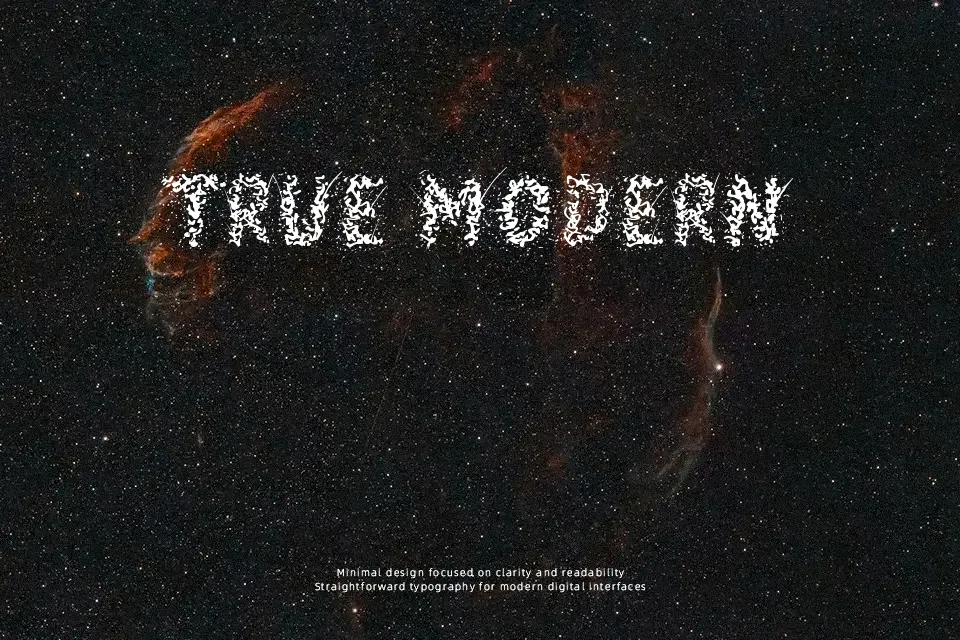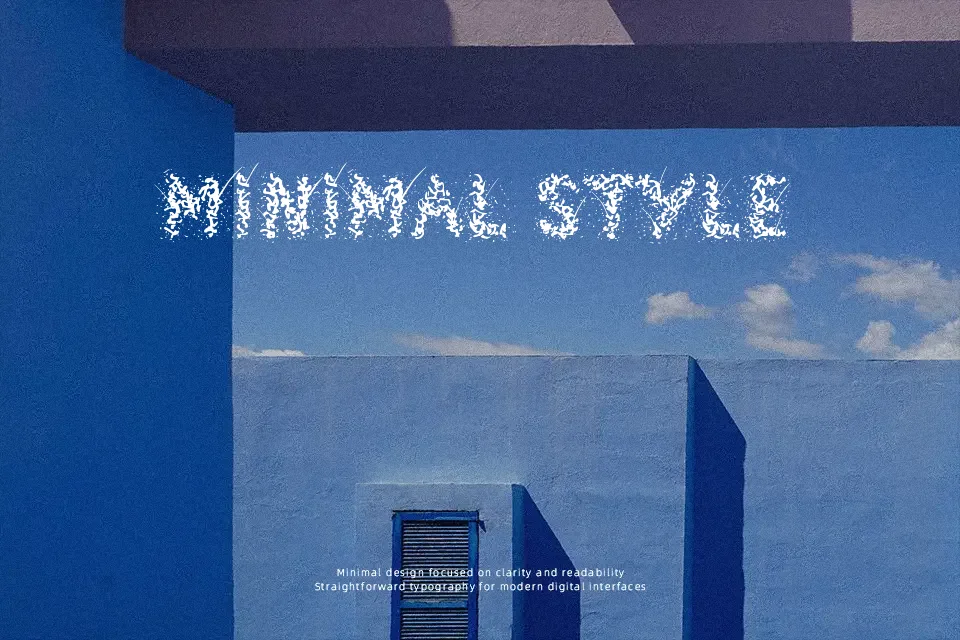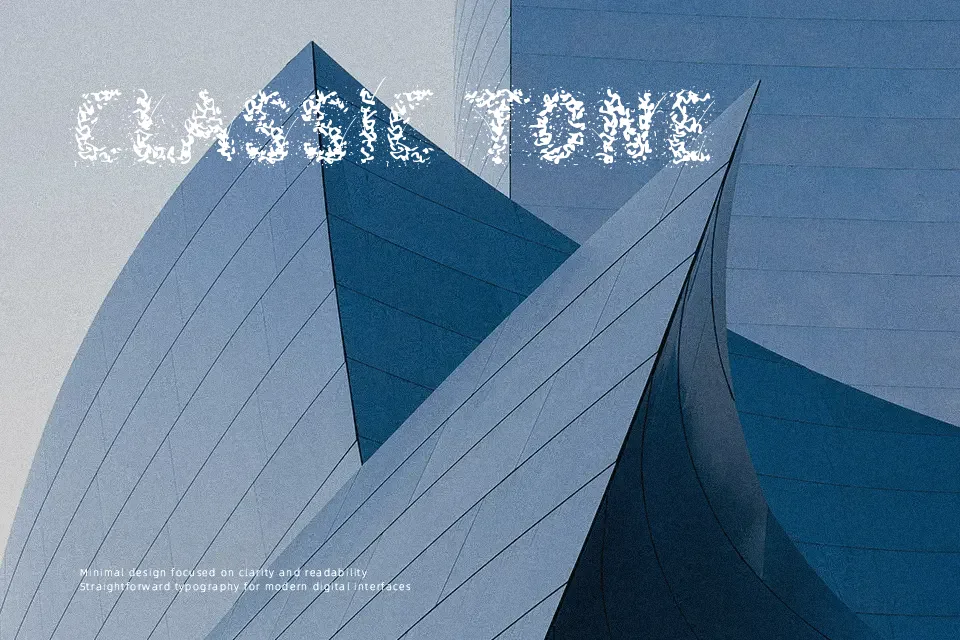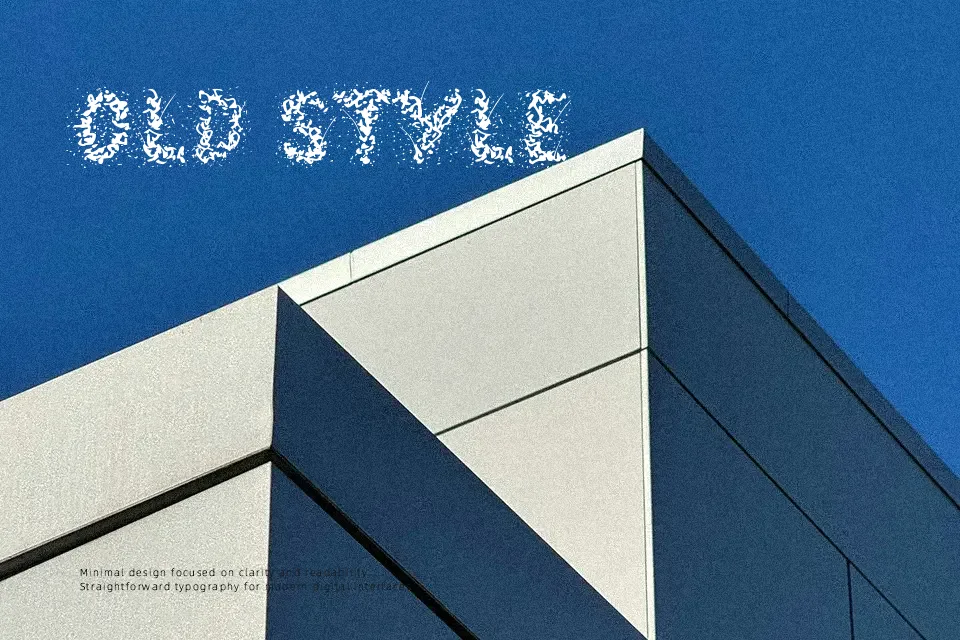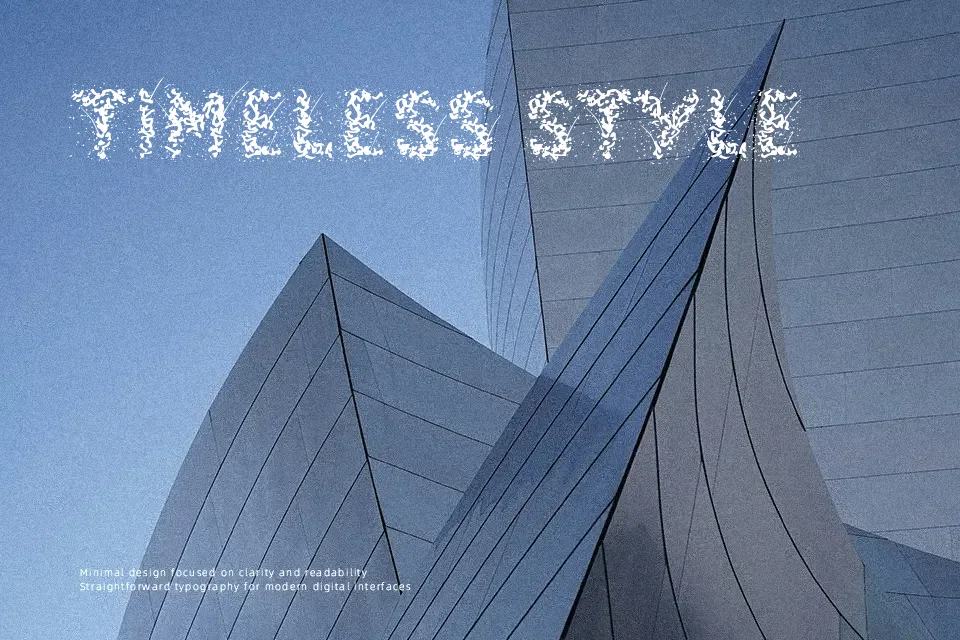
Snowmania Font
Snowmania Font uses heavy, uneven display letterforms with rounded, dripping contours that create a frosted, hand-shaped appearance. The strokes are broad and the proportions vary noticeably from character to character, giving short words a playful, wintry rhythm. Spacing appears open enough to keep large uppercase text recognizable despite the decorative edges. It works most comfortably in short headlines, poster titles, and seasonal graphics where the silhouette can be seen clearly. The textured forms become harder to read in small sizes, so it is not a practical choice for dense copy or compact labels.
Perfect for christmas, headline, and packaging, with a bold and decorative style.